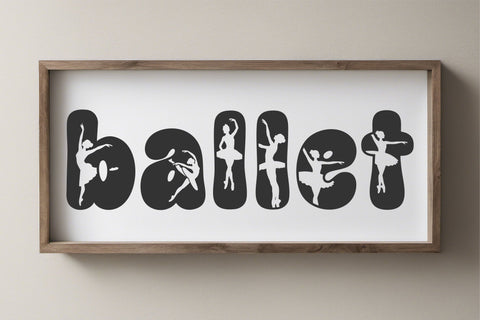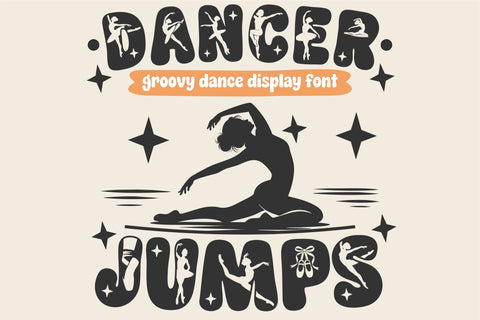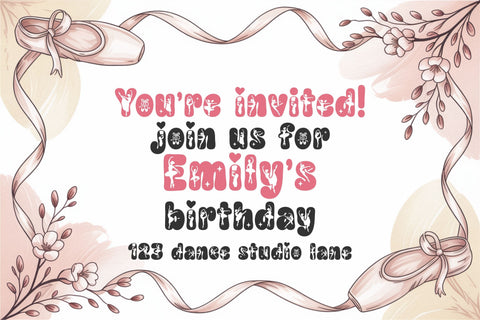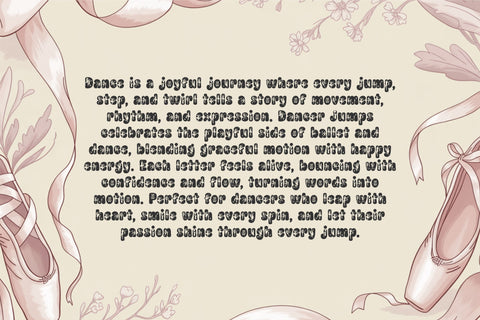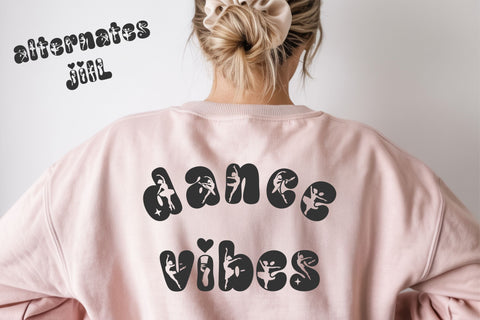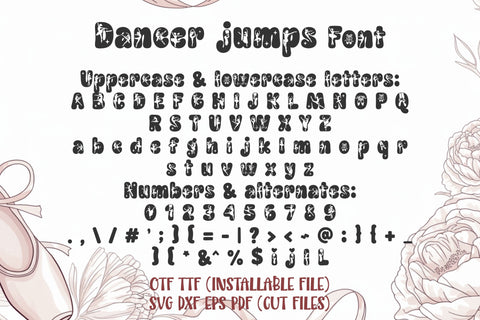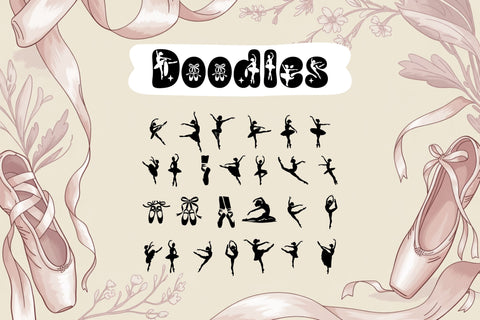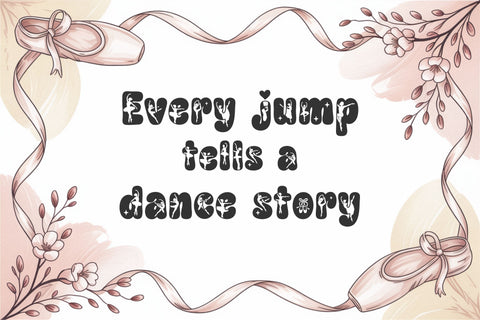
Dance Font, Groovy Ballet Font, Dancer Alphabet Letters
A playful and energetic dance font inspired by ballet movement and joyful jumps. Dancer Jumps features groovy, wavy letterforms combined with elegant dancer silhouettes, creating a perfect balance between fun and grace. This font is ideal for ballet signs, dance quotes, kids room decor, t-shirts, stickers, wall art, name signs, and Cricut or Silhouette projects. Designed for high contrast and smooth cutting, it works beautifully for both digital and physical crafting projects. A great choice for dancers, studios, recitals, and cheerful dance-themed creations.
✔️ Full alphabet (A–Z, a–z), numbers (0–9), punctuation, and alternates